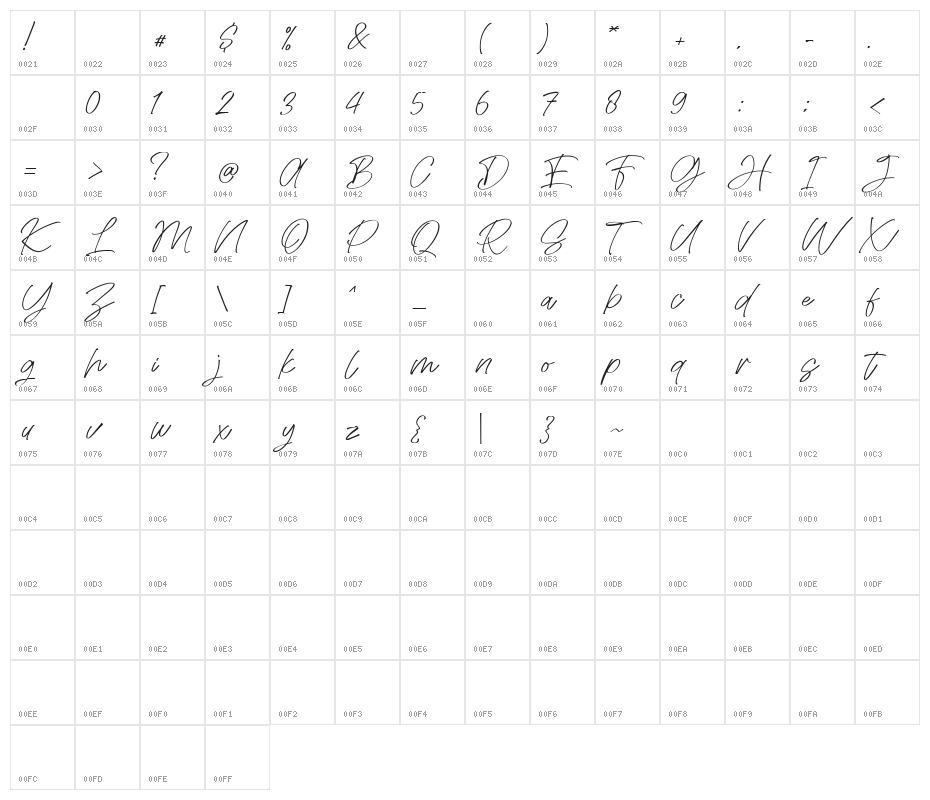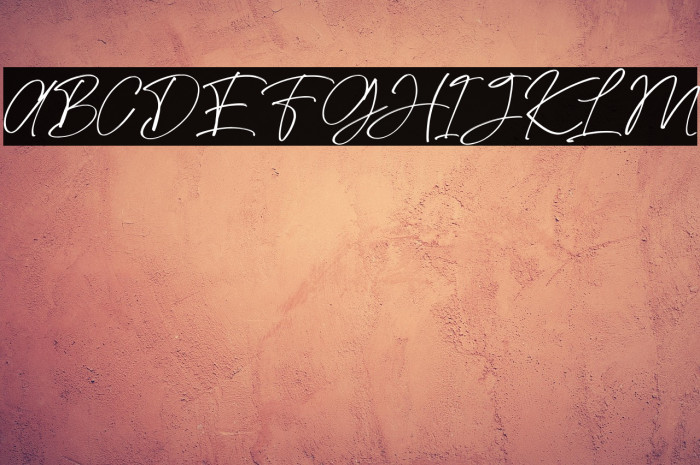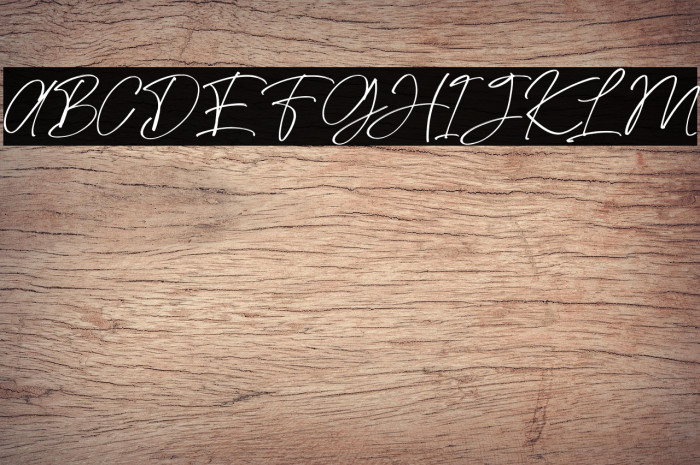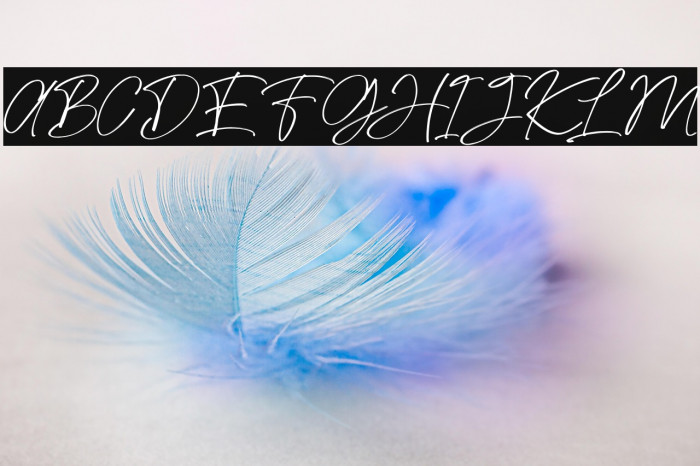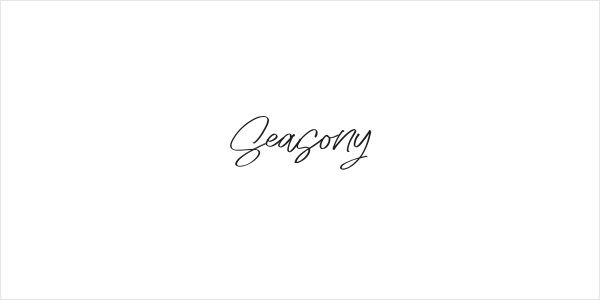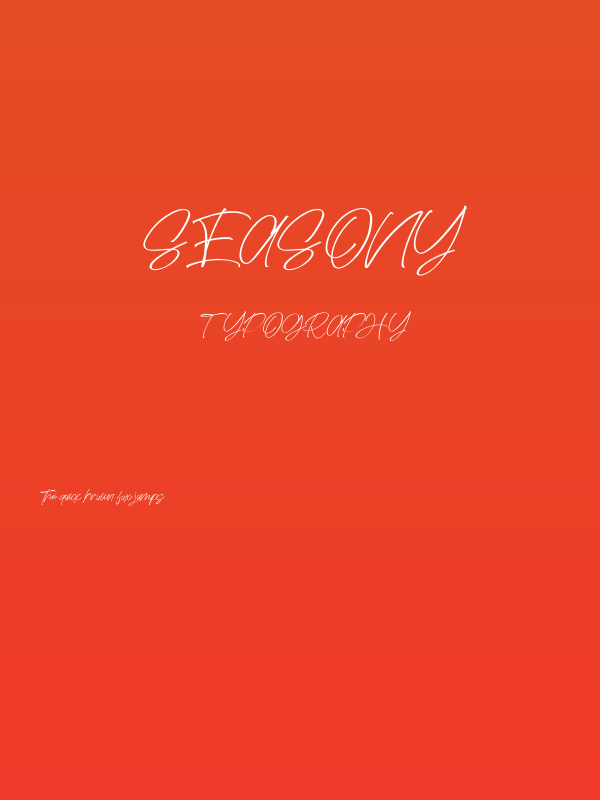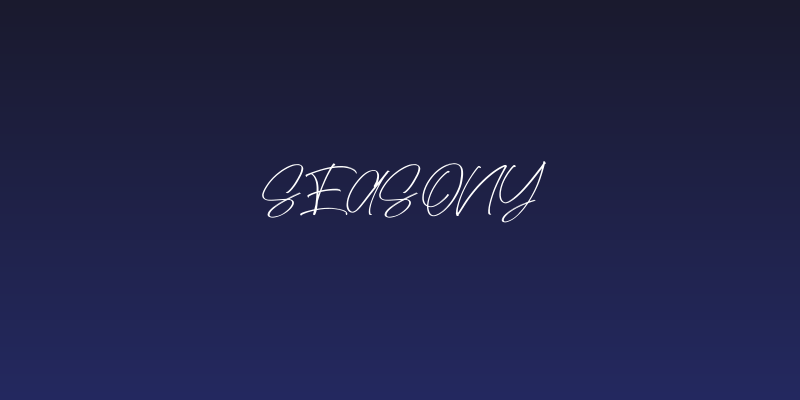
Seasony Font
Seasony Description
This font features a flowing, cursive style that mimics natural handwriting. The letters are connected with smooth, elegant strokes, giving it a personal and artistic touch. The uppercase letters are slightly more elaborate, while the lowercase letters maintain a consistent fluidity. The numerals and special characters are designed to match the overall aesthetic, ensuring a cohesive look. The font's thin lines and graceful curves make it suitable for projects that require a touch of sophistication and elegance.
| Overall Style | Elegant, Artistic |
| Proposed Projects | Ideal for wedding invitations, greeting cards, personal branding, and artistic projects. |